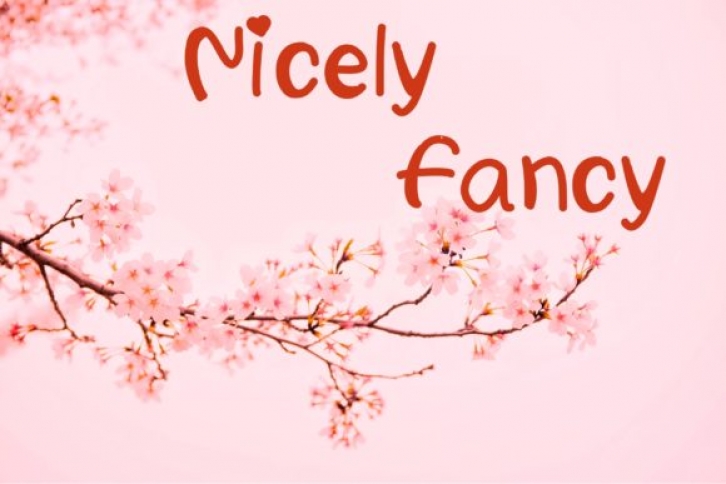
Nicely Fancy is a sweet and friendly handwritten font. Its natural and unique style makes it incredibly fitting to a large pool of designs. The only limit is your imagination!